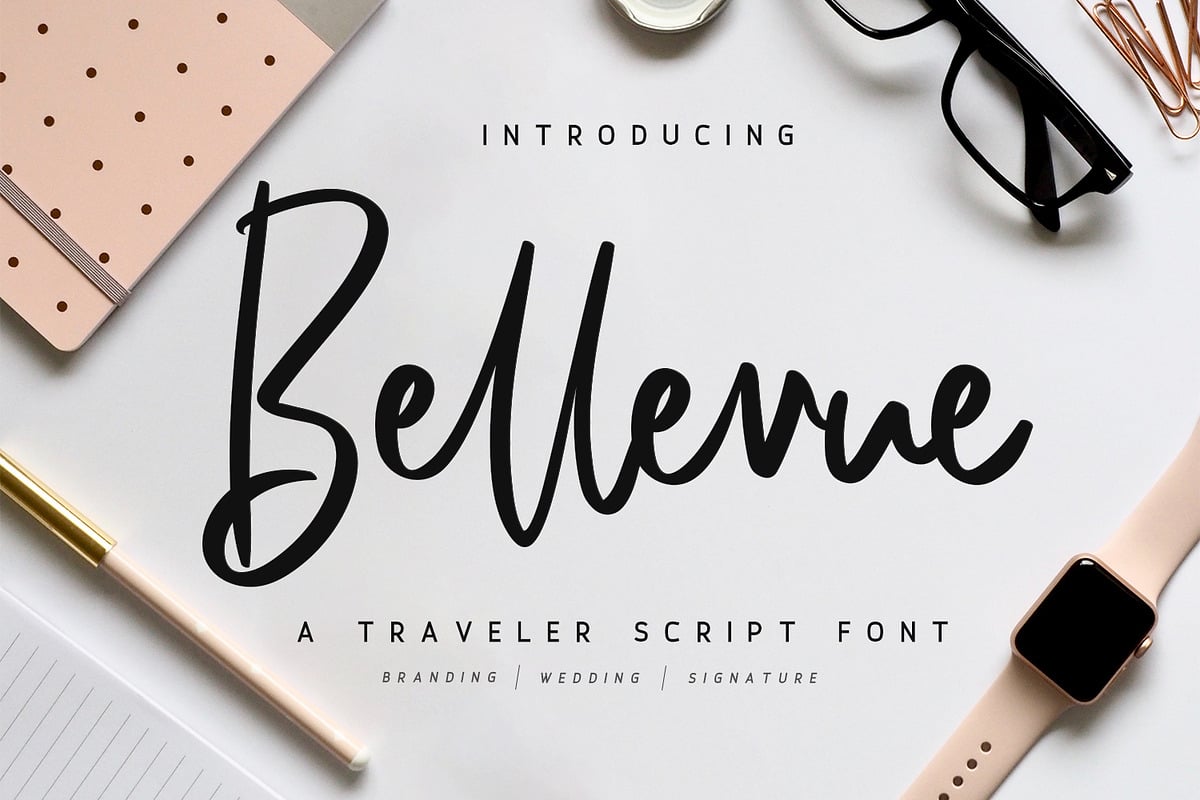
Bellevue // A Traveler Script Font
Bellevue is a flowing handwritten script with unique character — built for brands, weddings, and bold creative statements.
Bellevue is a handwriting script typeface with expressive letterforms and a distinctive personality. Whether you're designing logos, name cards, magazine layouts, invitations, headers, or large-scale artwork, Bellevue brings an authentic handcrafted feel to any project.
- Unique ligatures